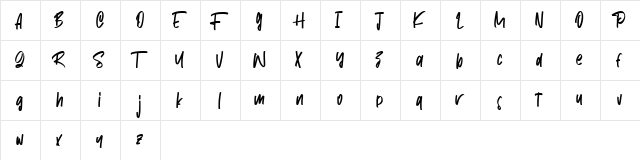
Marcello Regular
Design Context for Marcello Typeface
Marcello is a composed and adaptable typeface that performs quietly and consistently across a wide range of design contexts.
Pro Tip: Use Marcello in both headline and body roles to test its range before committing to a single application.